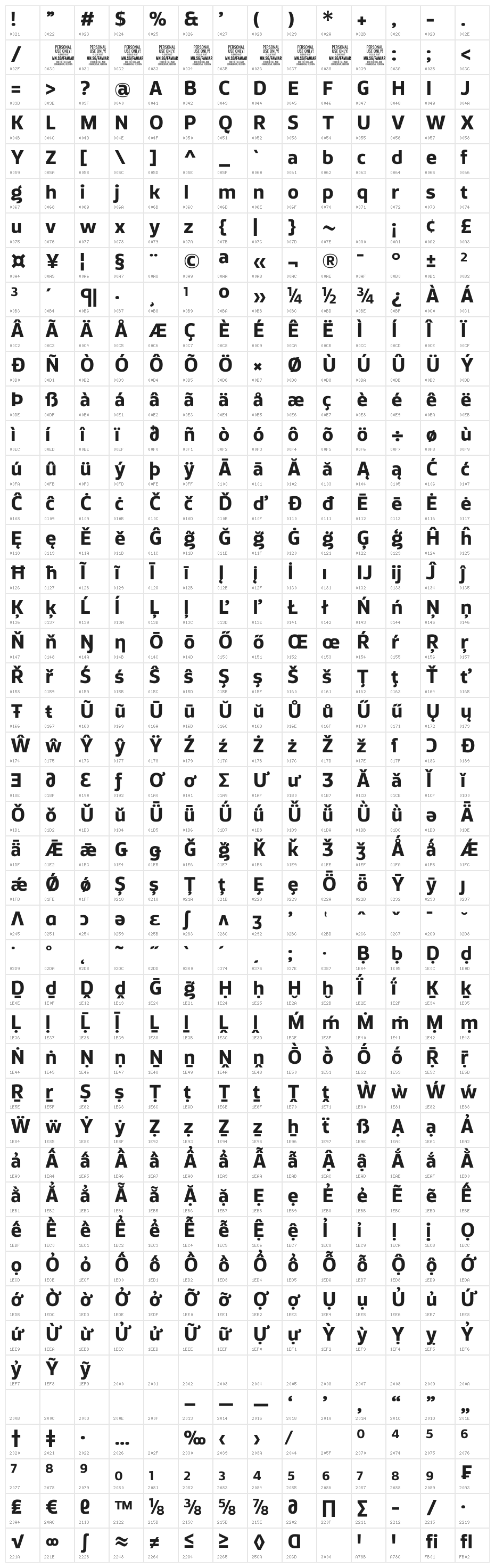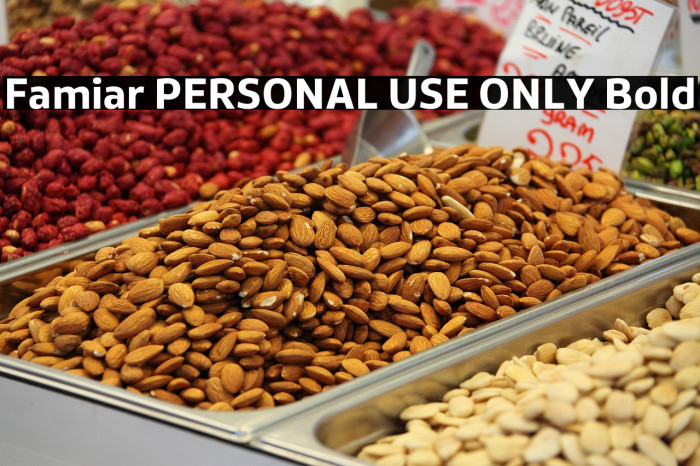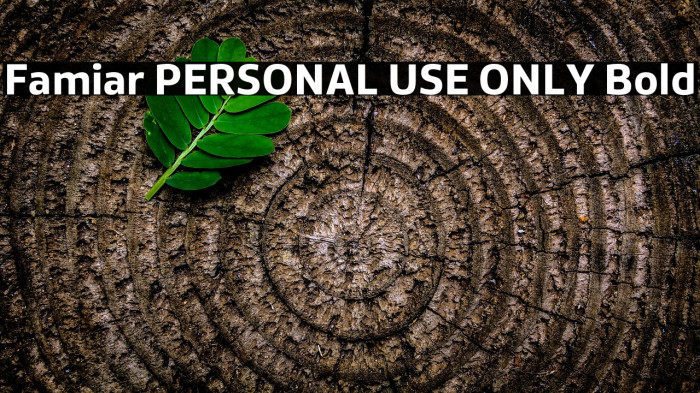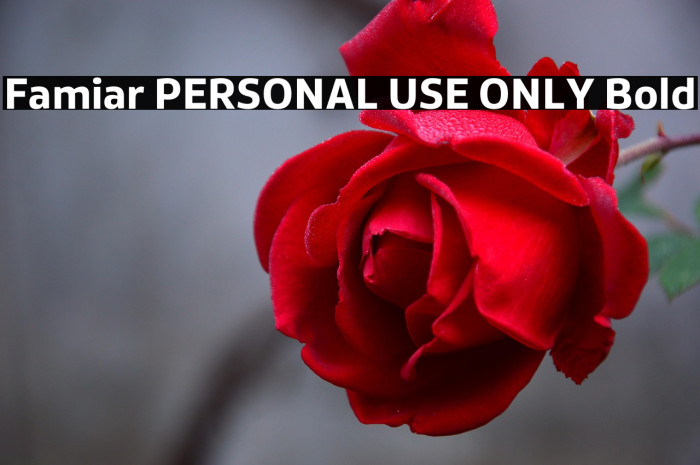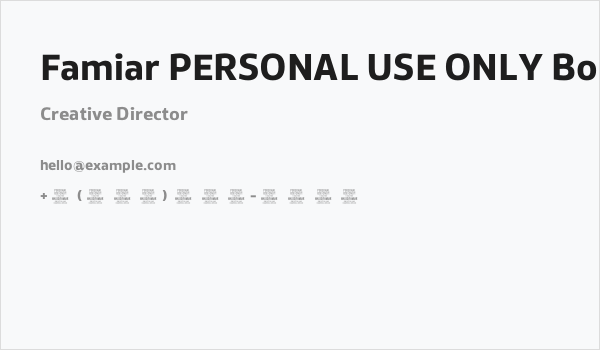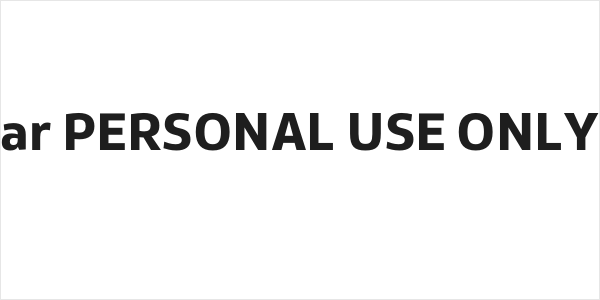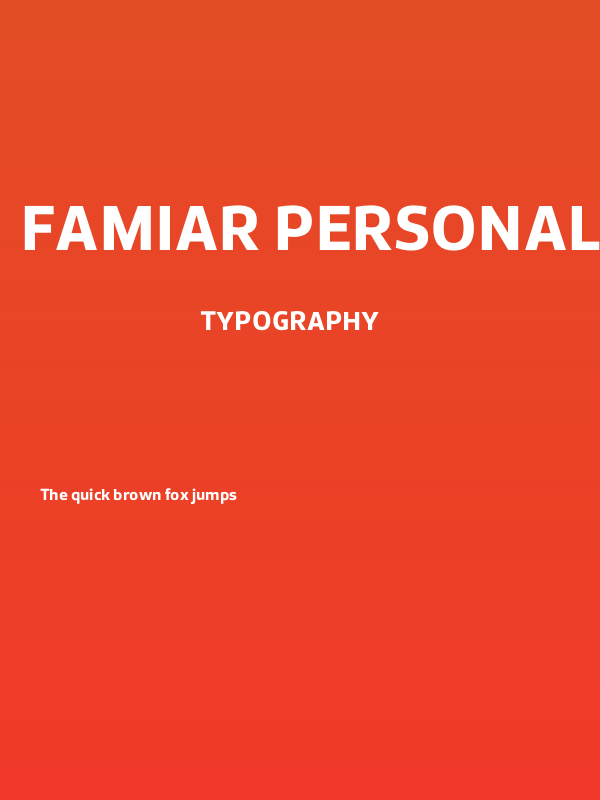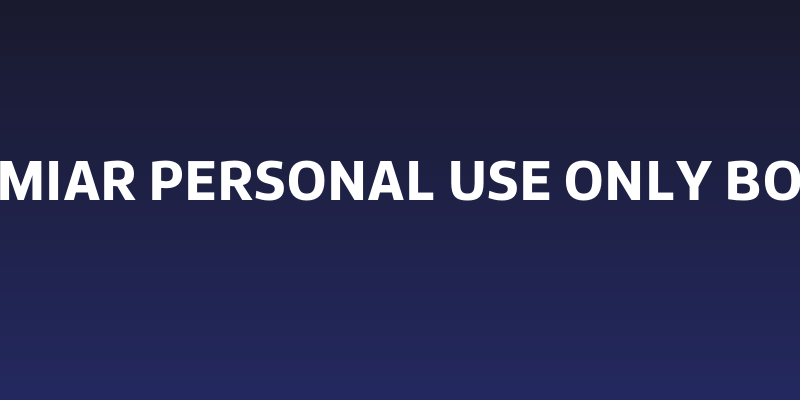
Famiar PERSONAL USE ONLY Bold Font
Famiar PERSONAL USE ONLY Bold Description
This font features a bold and modern sans-serif style with clean, strong lines and a robust presence. The uppercase and lowercase letters are well-proportioned, maintaining a consistent weight throughout. The characters are slightly condensed, giving a compact and efficient look. The numerals and special characters are designed to match the overall boldness, ensuring uniformity across all glyphs. The font's simplicity and clarity make it highly legible, suitable for various design applications where a strong visual impact is desired.
| Proposed Projects | Ideal for headlines, posters, branding, and advertising where a bold statement is needed. |